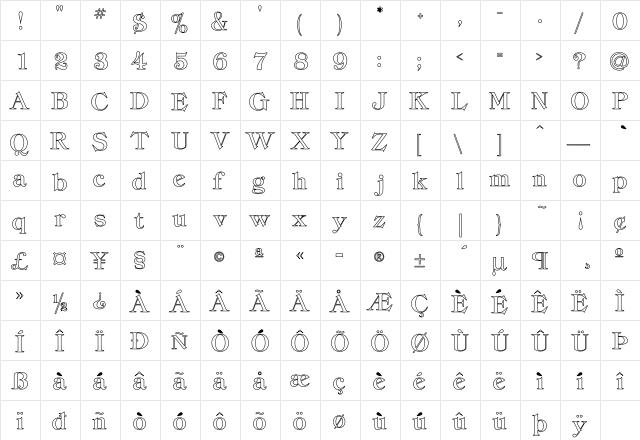
Denver Ho Regular Font Preview
Denver Ho Regular
Design Context for Denver Ho Typeface
Denver Ho is a composed and adaptable typeface that performs quietly and consistently across a wide range of design contexts.